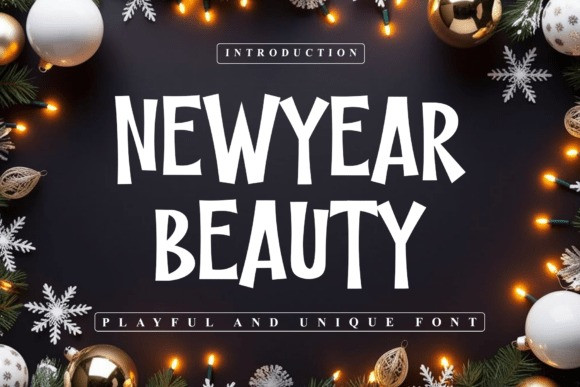
Newyear Beauty Font
Designer: Creatype Designer
Newyear Beauty Font is a bold, chunky display font with rounded, soft edges that provides a clear, friendly, and highly visible statement.
This font is a heavy, rounded sans-serif display font that borders on the bubble or comic style, characterized by its substantial weight, closed forms, and exceptionally smooth, rounded terminals. It is designed for maximum impact and immediate readability.
The slightly uneven placement of the lowercase ‘e’ adds a subtle, playful element to the otherwise serious weight. It is perfect for posters, catchy social media headers, product labels, game titles, and attention-grabbing headlines in children’s or fun-themed contexts where a clear, punchy, and modern aesthetic is required.